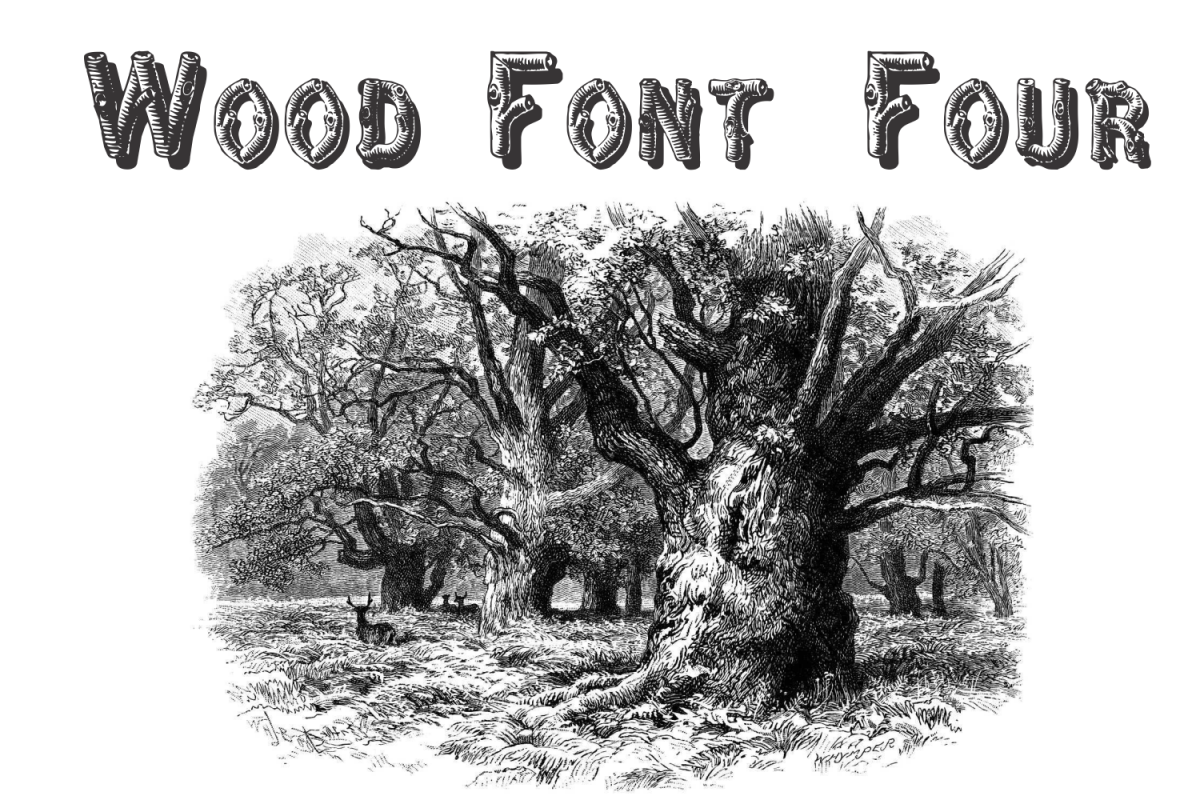
Wood Font Four
A display and decorative font built upon the theme of wood. Great for display purposes in projects about nature and environmental topics
First shown as Rustic No. 2, issued in 1845/6 by Figgins [Gray] and as Ornamented No. 3 by Bruce. Available from many 19th-century foundries (Besley, Boston, Fann St., Ullmer) as Rustic. The design differed in different sizes, and eventually included regular, shaded, and outline shaded versions.
It was recut in 1962 or earlier by John S. Carroll as “Rustic or Log Cabin … from Bruce’s Ornamented No. 864.” [McGrew 1993]